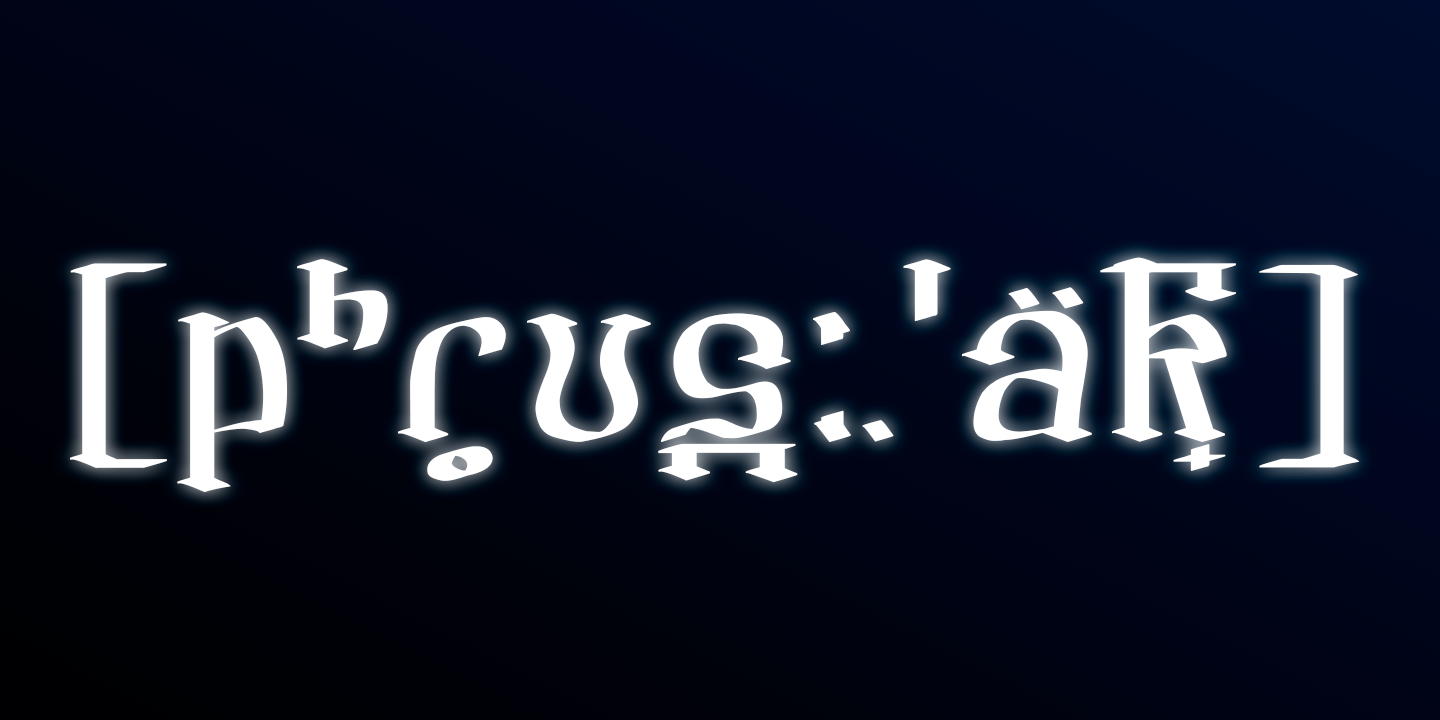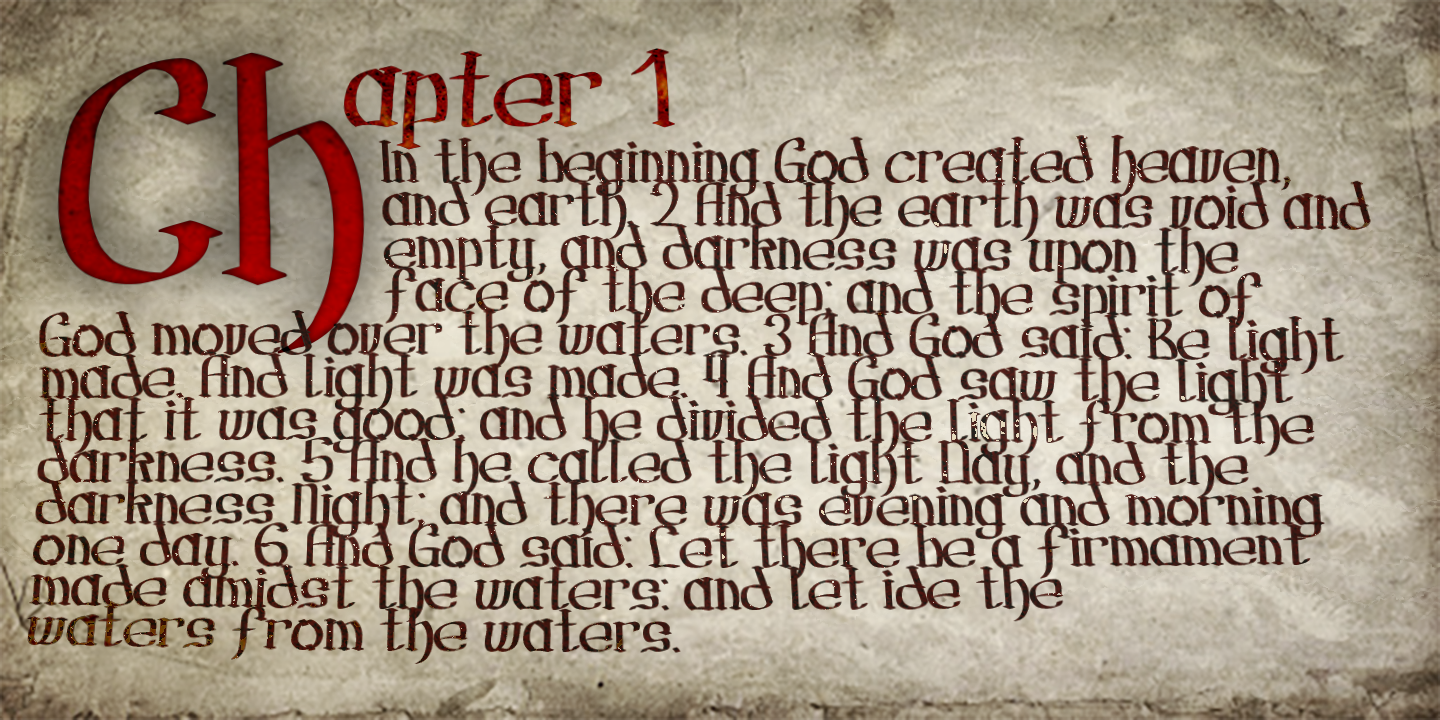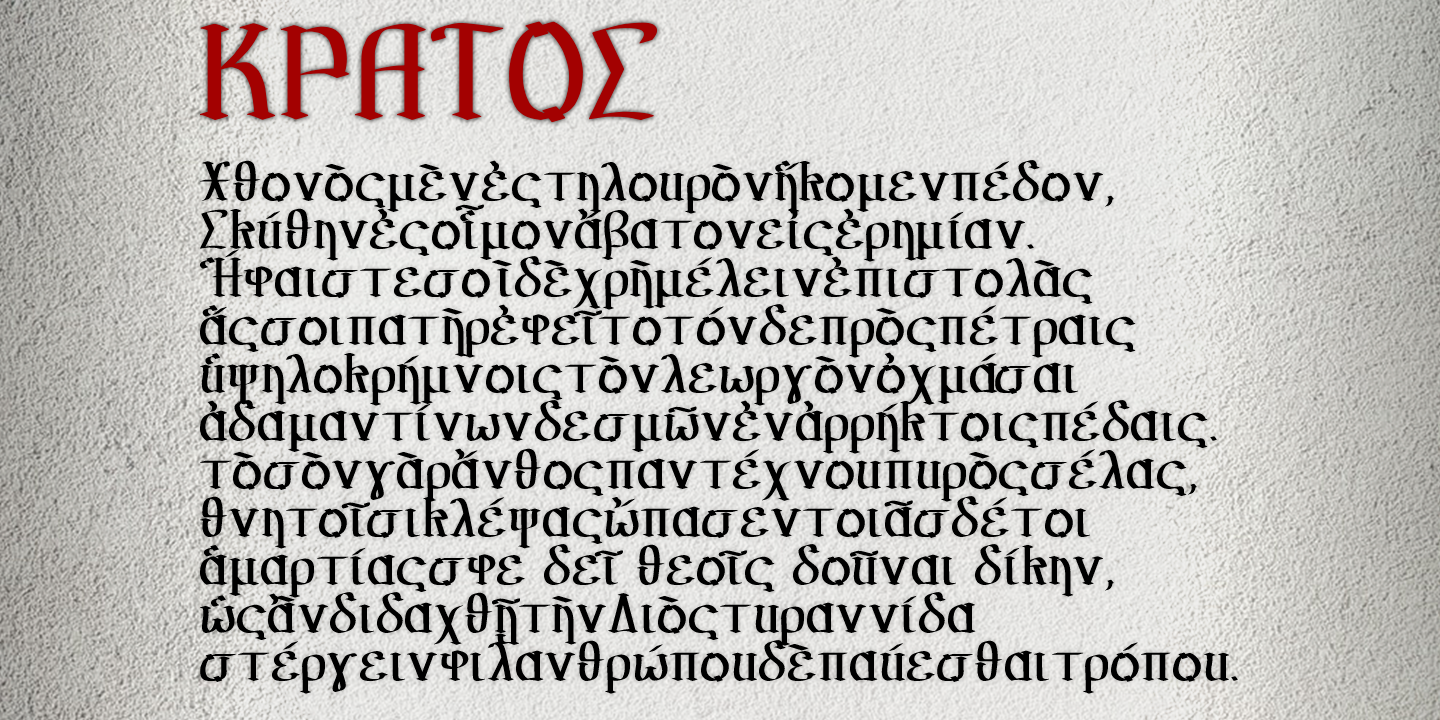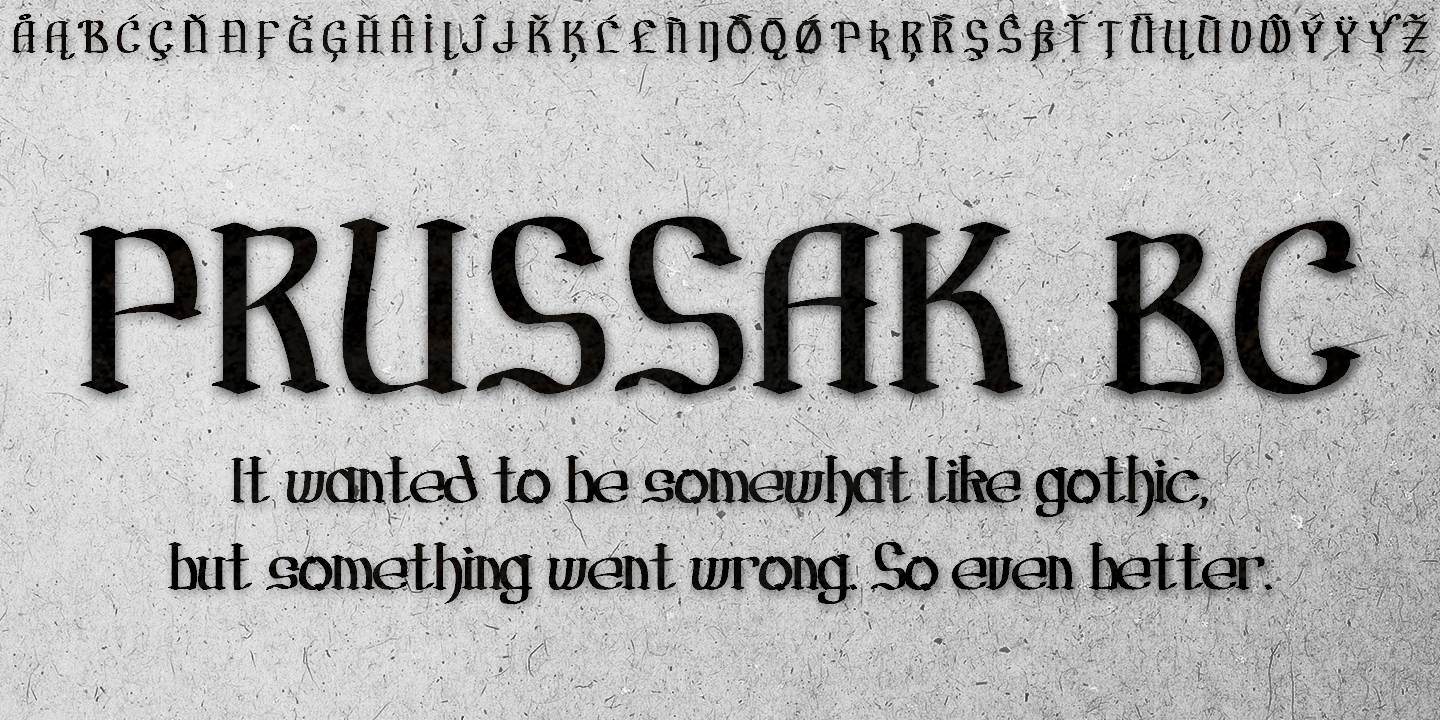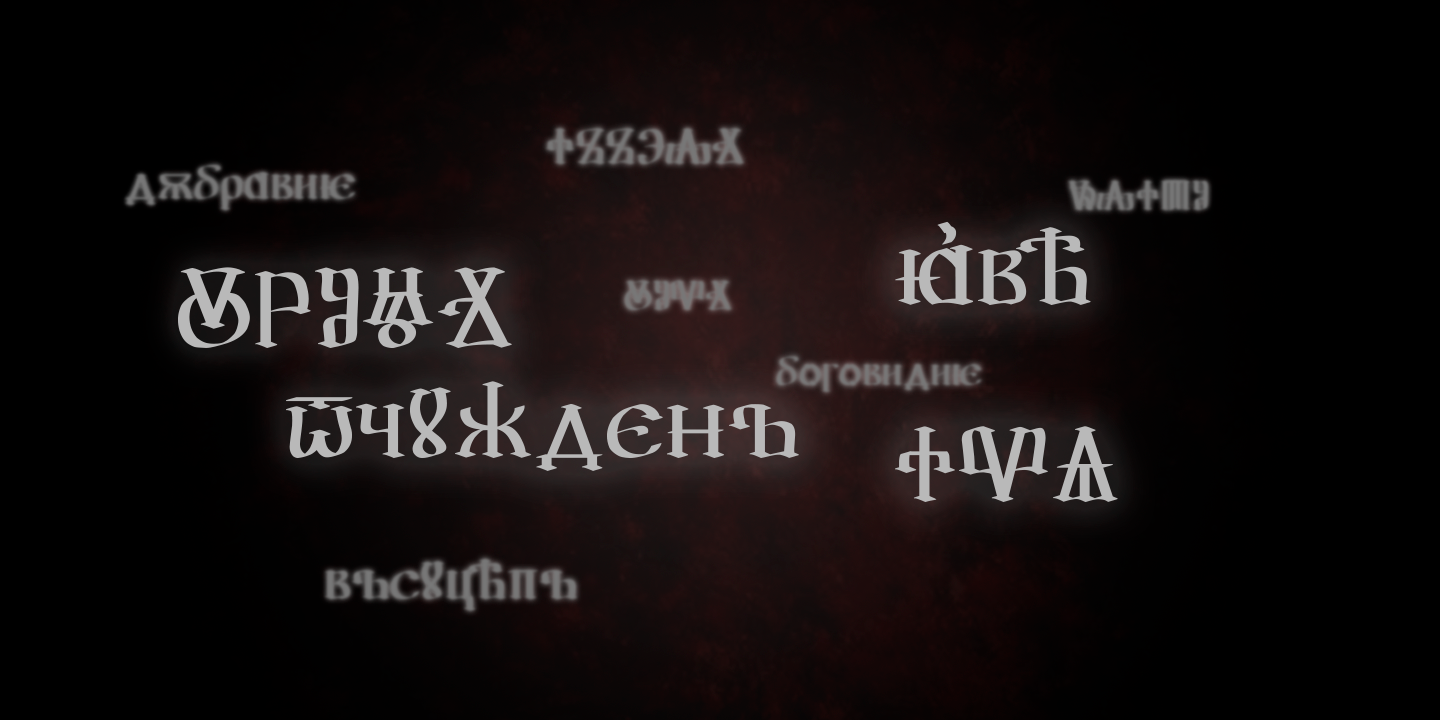
Prussak BC Regular
I wanted to do somewhat like Blackletter, but Blackletter is hard to read sometimes, so I tried to solve this problem and to do something unique. This font is able to be used with all European languages including ancient and reconstructed languages like Old Church Slavonic (it can be written by Cyrillic or Glagolitic script), Proto Slavic, Ancient Greek etc. It also includes IPA, so it can be used in education.